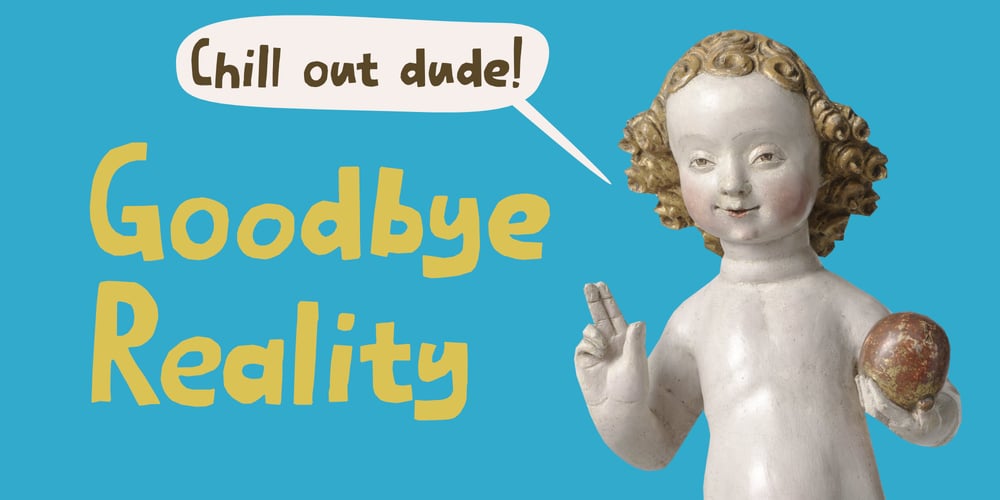
Goodbye Reality Font Family was designed by David Kerkhoff and published by Kitchen Table Type Foundry. Goodbye Reality contains 2 styles and family package options. I am not sure about you, but I sometimes think that reason and sanity are obsolete concepts these days, but maybe I am making too much of it and things will turn out to be ok. Fingers crossed!Goodbye Reality is a font I made by hand (fact checked!), using a roller ball pen and rough paper (I have proof!), while enjoying several cups of home-made, organic latte (with real milk) and some biscotti my wife baked (I have witnesses…).Comes with extensive language support and a set of alternates for the lower case glyphs.